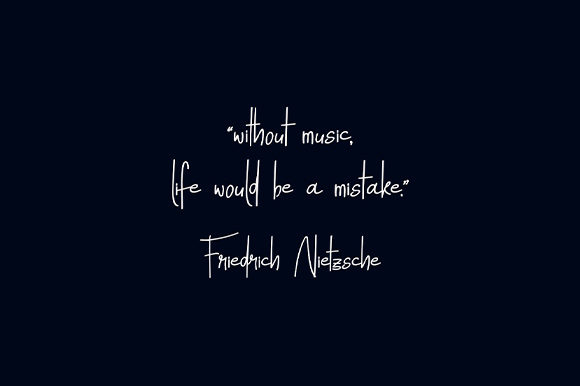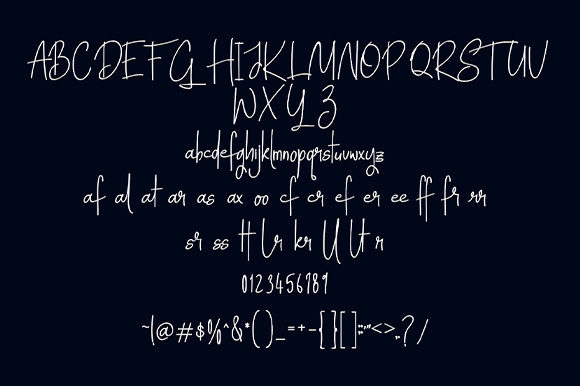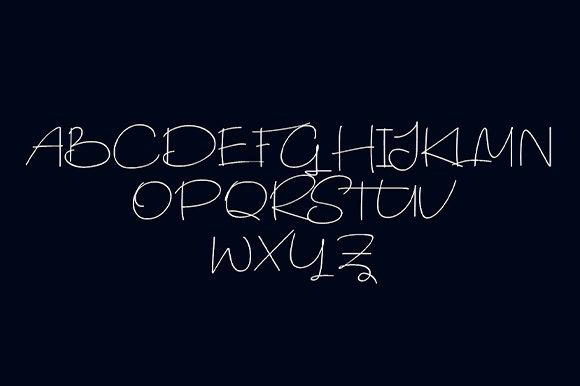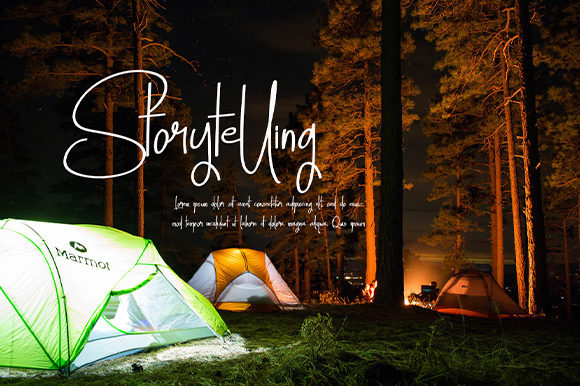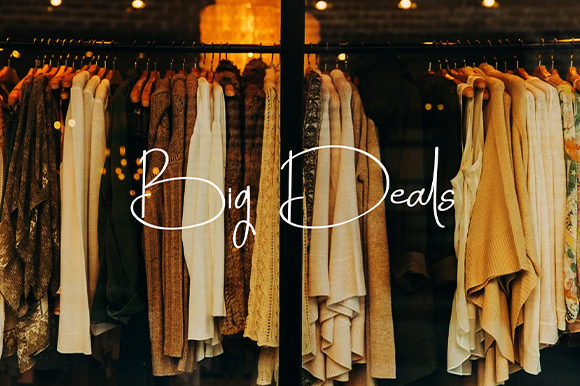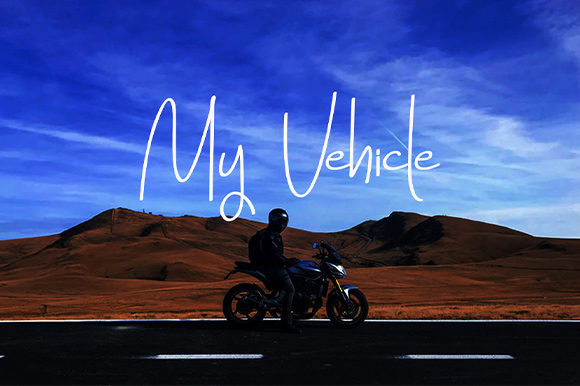
Introduction to Horizon Mountain Font
Horizon Mountain is a unique display font.
It features amazing ligatures and a relaxed feel It maintains its classy calligraphic influences while feeling contemporary and fresh.
Key Features of Horizon Mountain Font